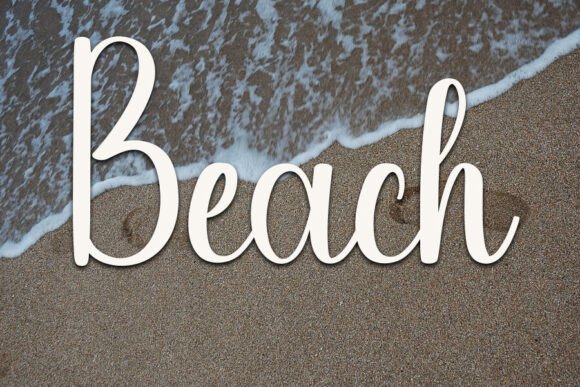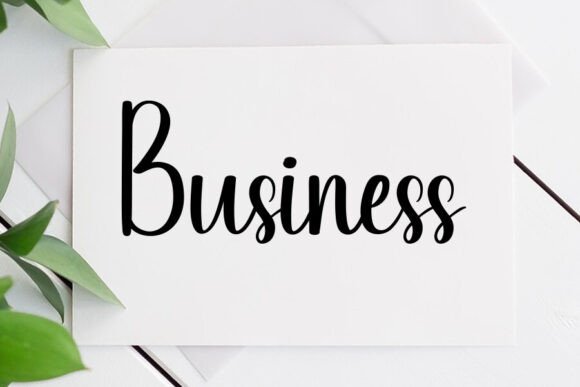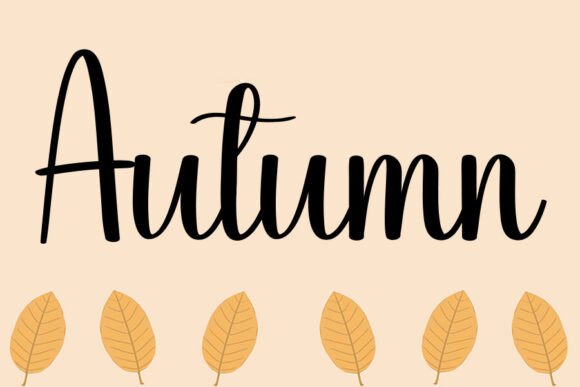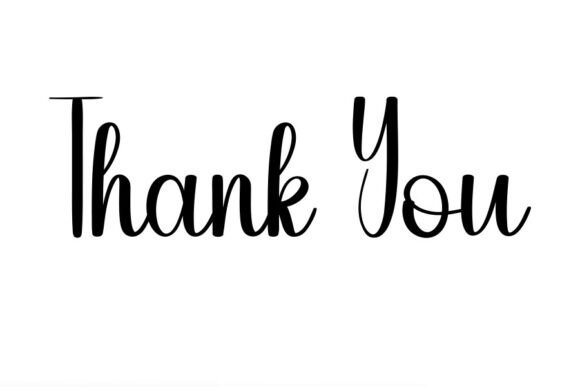
Elegant Font: The Perfect Choice for Your Design Projects
Are you looking for a font that exudes elegance and sophistication, yet still conveys a sense of casual charm? Look no further than the Elegant font, a sweet and cursive handwritten font that is sure to elevate your design projects to the next level. In this article, we’ll take a closer look at the Elegant font, its features, and how you can use it to add a touch of joy and romance to your designs.
What is Elegant Font?
Elegant is a beautiful, cursive handwritten font that is designed to add a touch of elegance and sophistication to your designs. With its gentle and flowing lines, this font is perfect for creating a sense of joy and romance in your projects. Whether you’re working on a branding campaign, a wedding invitation, or a fashion lookbook, the Elegant font is sure to impress.
Key Features of Elegant Font
• Sweet and Cursive Handwritten Style: The Elegant font features a beautiful, cursive handwritten style that is both elegant and charming.
• Versatile: This font is perfect for a variety of design projects, including branding, logos, wedding things, greeting cards, fashion, lookbooks, marketing promotions, and more.
• Easy to Read: The Elegant font is designed to be easy to read, making it perfect for use in both print and digital designs.
• Fancy yet Casual: This font strikes the perfect balance between elegance and casual charm, making it perfect for designers who want to create a sophisticated yet approachable look.
Use Cases for Elegant Font
The Elegant font is incredibly versatile, and can be used in a wide range of design projects. Here are some ideas to get you started:
• Branding: Use the Elegant font to create a sophisticated and elegant brand identity that will help you stand out from the competition.
• Wedding Designs: This font is perfect for wedding invitations, wedding programs, and other wedding-related designs.
• Fashion: Use the Elegant font to create a stylish and sophisticated look for your fashion brand or lookbook.
• Greeting Cards: Add a touch of elegance and charm to your greeting cards with the Elegant font.
• Marketing Promotions: Use this font to create eye-catching marketing materials, such as brochures, flyers, and posters.
Tips for Using Elegant Font
Here are some tips for getting the most out of the Elegant font:
• Use it as a Headline Font: The Elegant font is perfect for use as a headline font, where it can add a touch of elegance and sophistication to your design.
• Pair it with a Simple Font: For body text, pair the Elegant font with a simple, easy-to-read font to create a beautiful contrast.
• Experiment with Colors: The Elegant font looks great in a variety of colors, so don’t be afraid to experiment and find the perfect shade for your design.
In conclusion, the Elegant font is a beautiful and versatile font that is perfect for designers who want to add a touch of elegance and sophistication to their designs. With its sweet and cursive handwritten style, this font is sure to impress in a wide range of design projects, from branding and wedding designs to fashion and marketing materials. So why not give it a try and see the difference it can make in your designs?